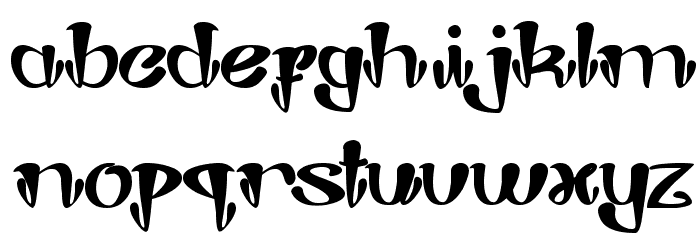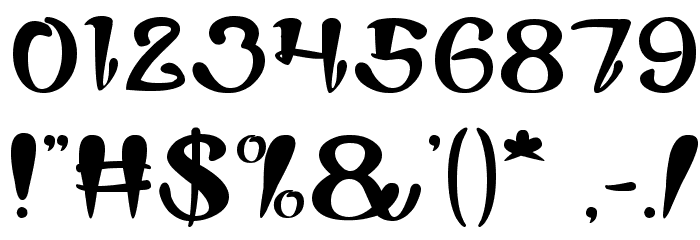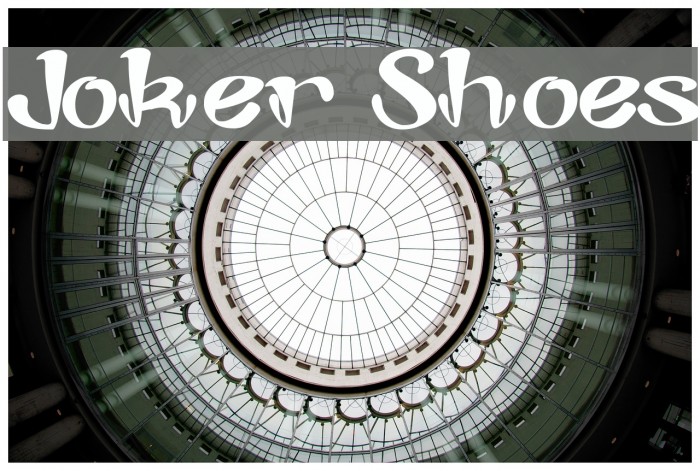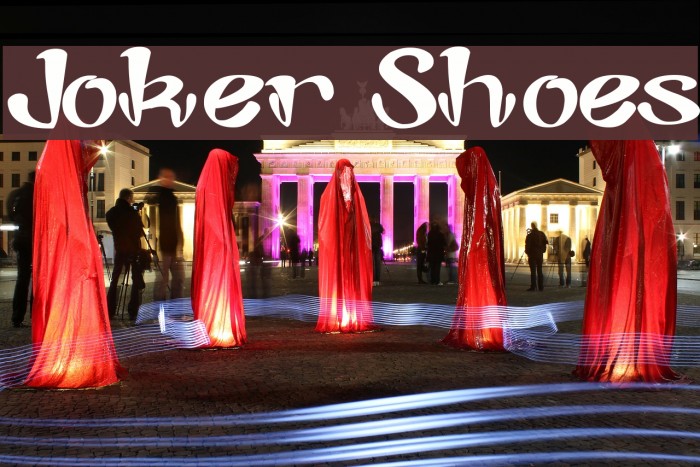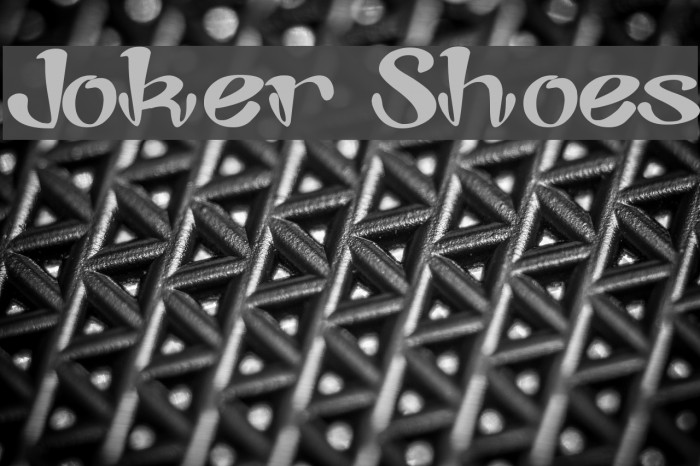
Joker Shoes Font
This font features a playful and whimsical design with a bold, decorative style. The characters are crafted with unique, exaggerated curves and flourishes, giving them a lively and dynamic appearance. The uppercase and lowercase letters maintain a consistent style, with a slight slant that adds to the font's energetic feel. The numbers and special characters are equally expressive, ensuring a cohesive look across all text elements. The font's distinct personality makes it ideal for creative projects that require a touch of fun and flair.
A bold, decorative font with playful curves and a whimsical style.
- Proposed Projects: Ideal for children's book covers, playful branding, party invitations, and creative posters.
- Overall Style: Playful, Whimsical, Decorative